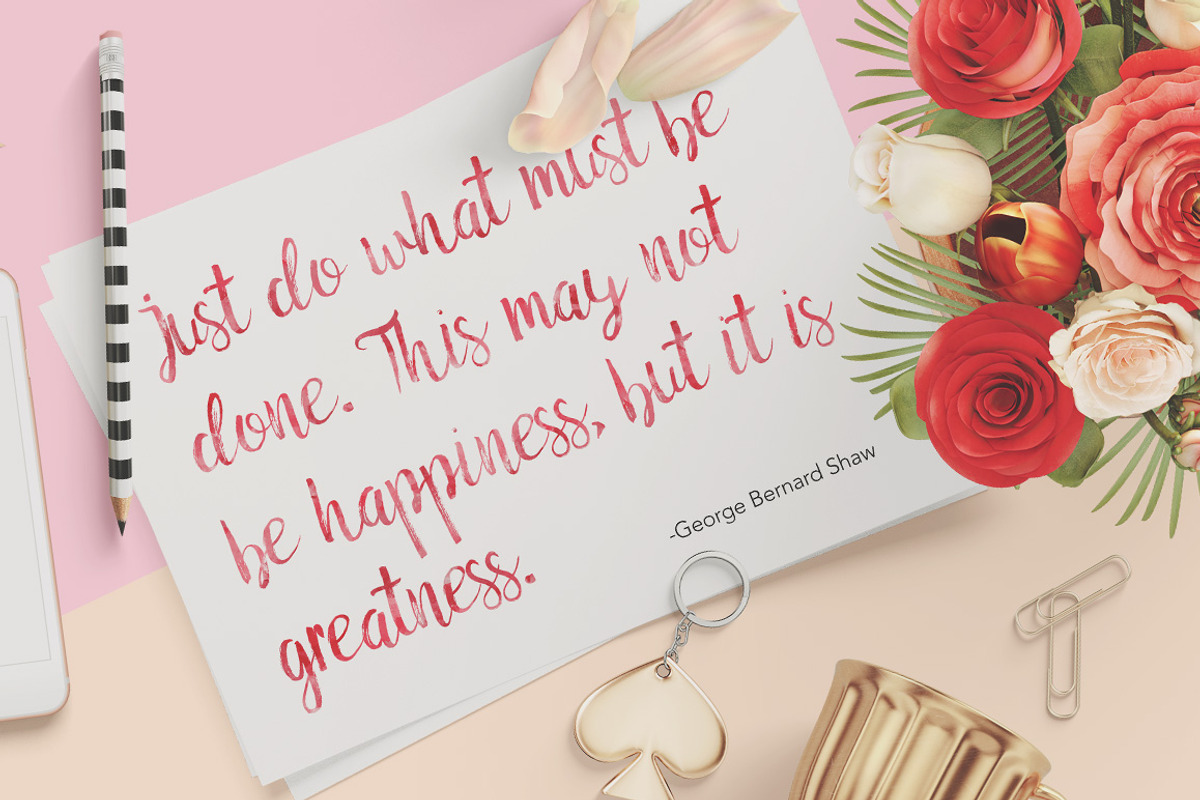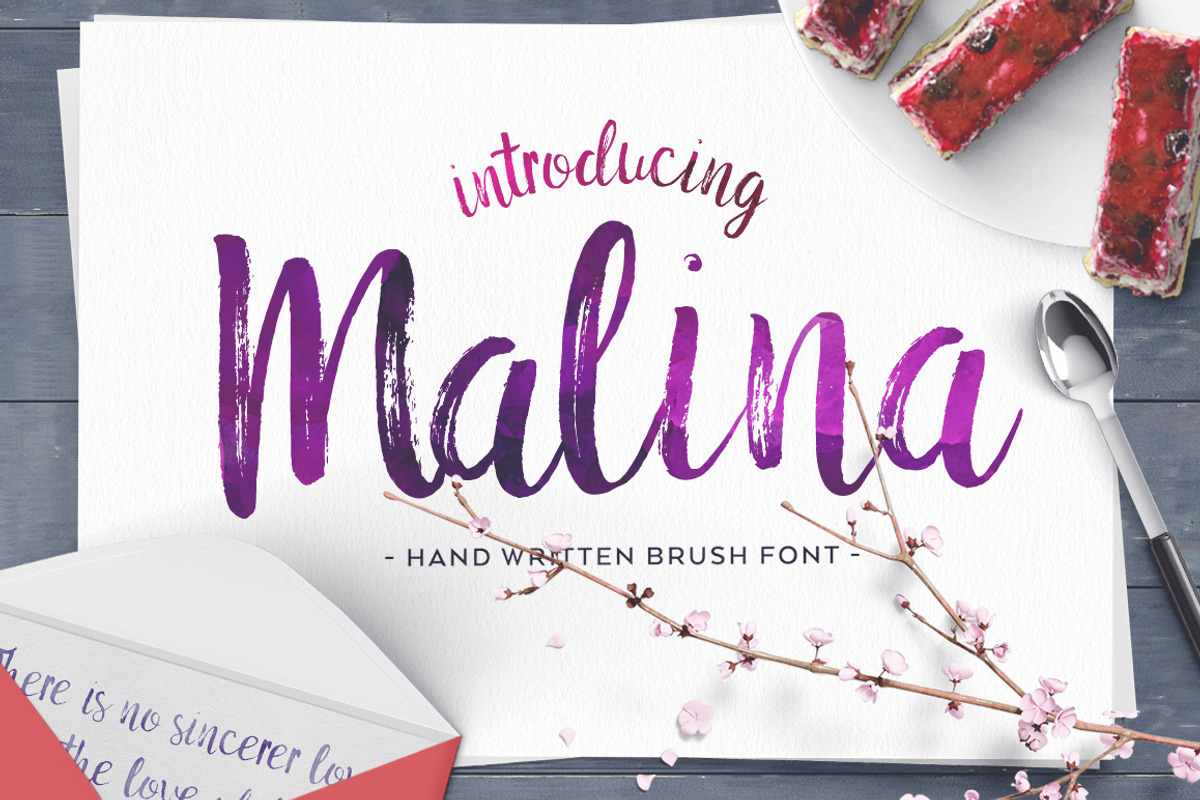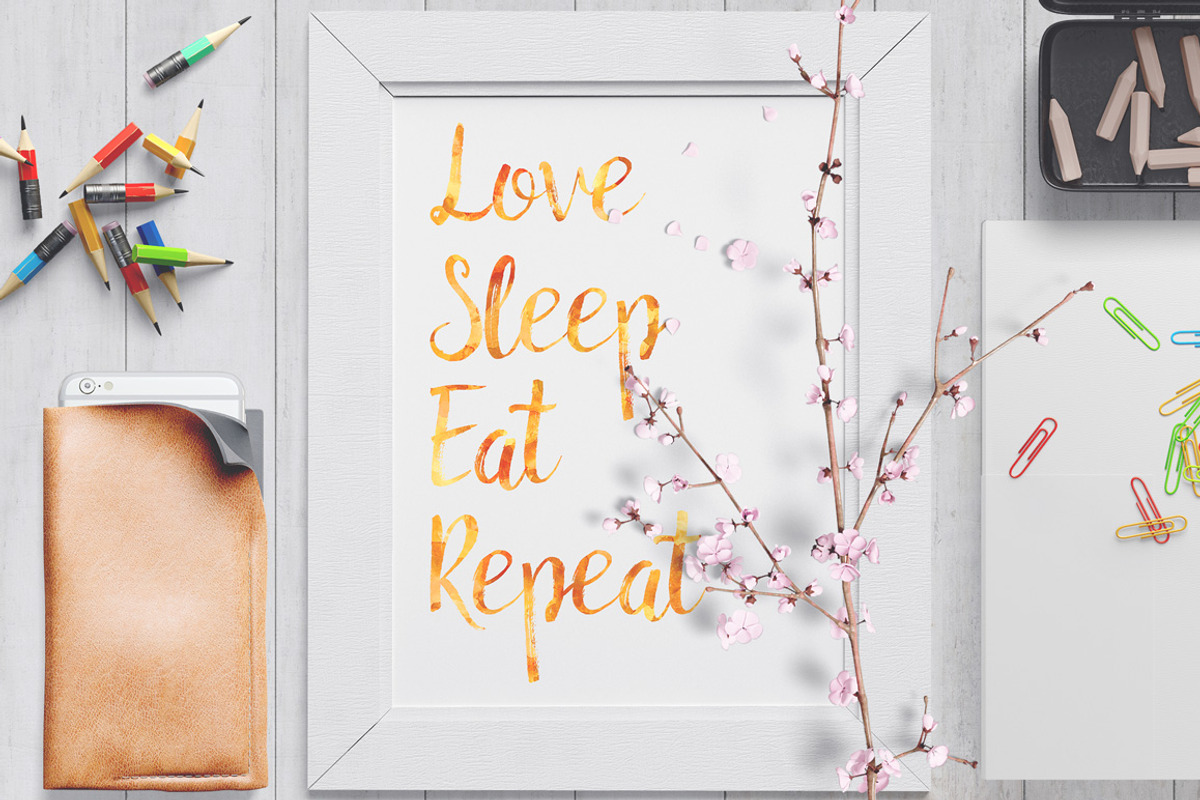
Malina Brush Font
Malina Brush Font by Ivan Rosenberg is a font selected for branding, posters, packaging, typography.
- Malina Brush Font is a hand brushed font with multilingual support.
Why Malina Brush Font is worth a look
Malina Brush Font by Ivan Rosenberg fits naturally into Branding, posters, packaging, typography.